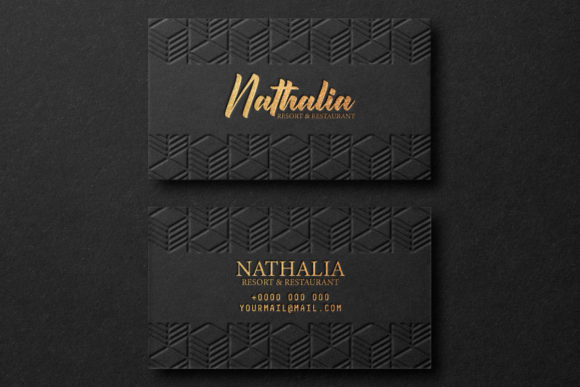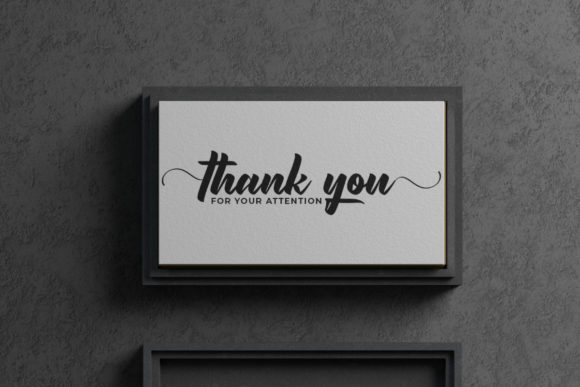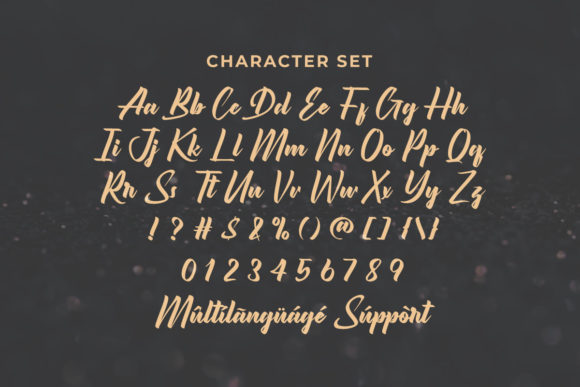
About Beckley Font
Beckley is a curly font script with a simple handwriting style with a unique brush calligraphy style. Beckley Calligraphy Font is an original handwritten script typeface with a unique look.
The font will be great for any projects including, branding, logo, stationery, business card, signage, flyer, brochure, etc. Almost all industries will be matched for this typeface: wedding, events, real estate, architect, florist, gardening, makeup artist, travel, hotel, or musician.